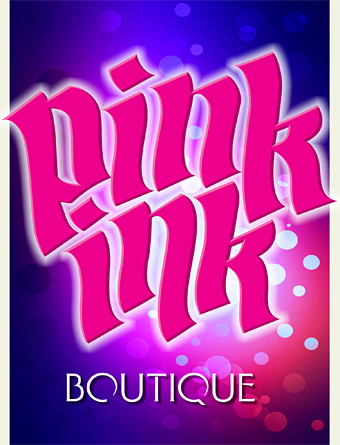
An easy-to-read Blackletter style from Dave Correll. LHF Divine has a hand- lettered personality that keeps it from being too stiff. You might also like: New English.